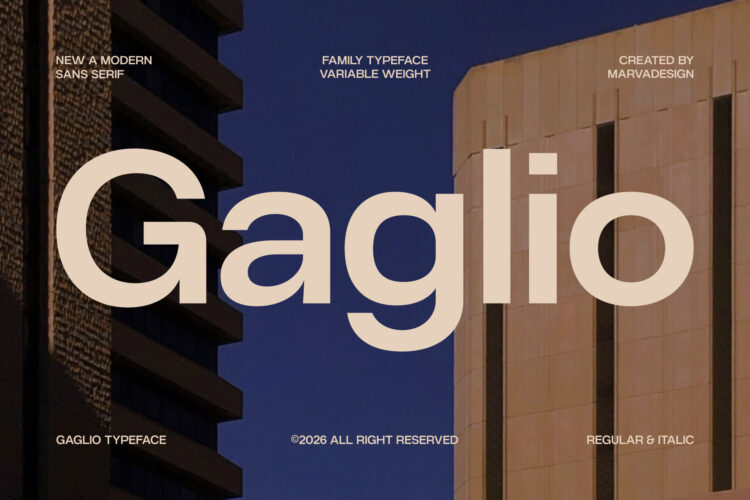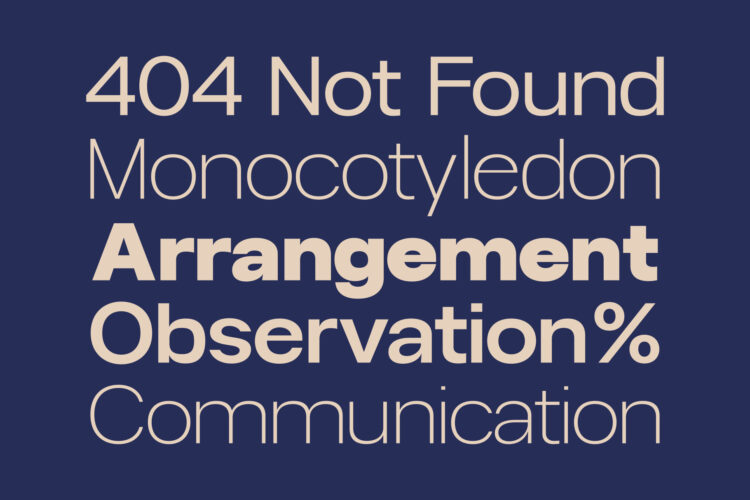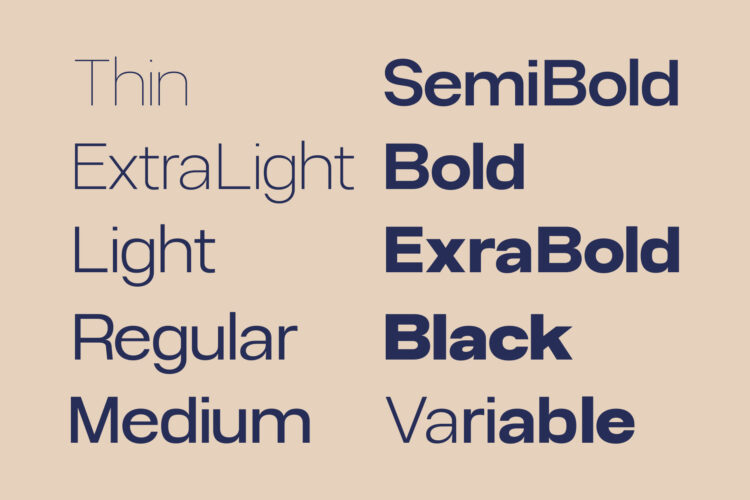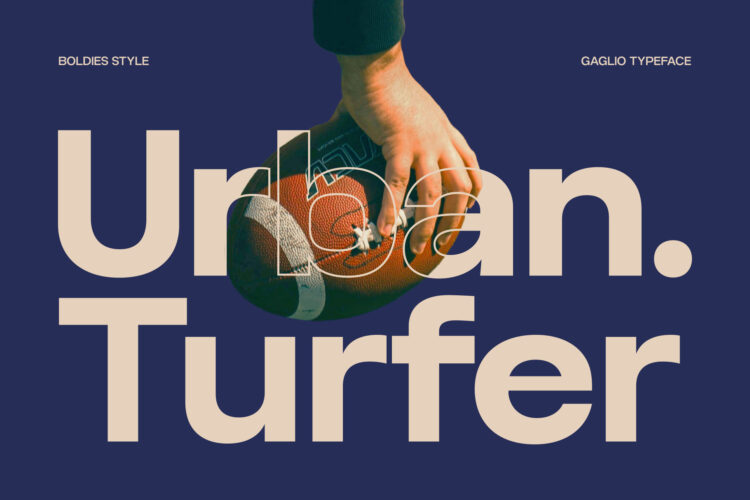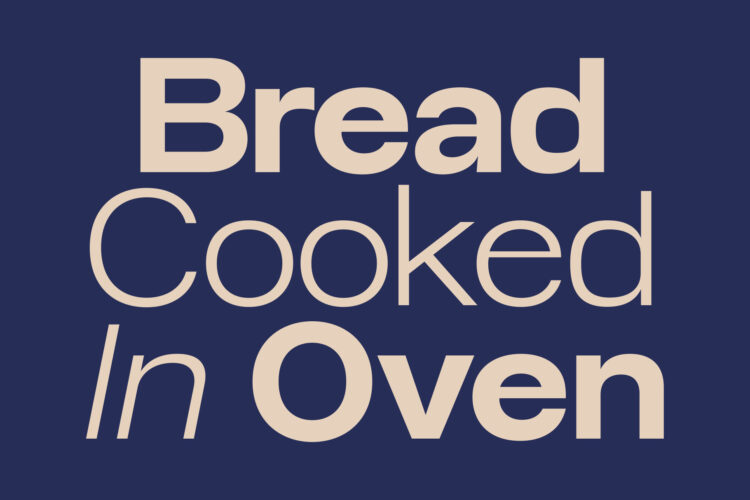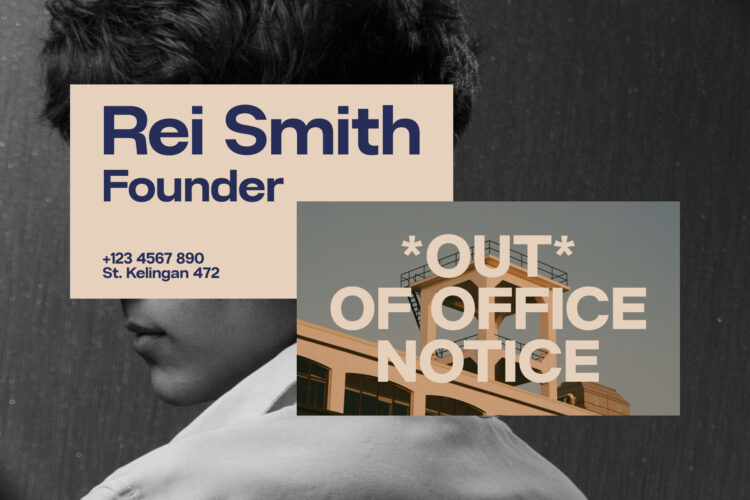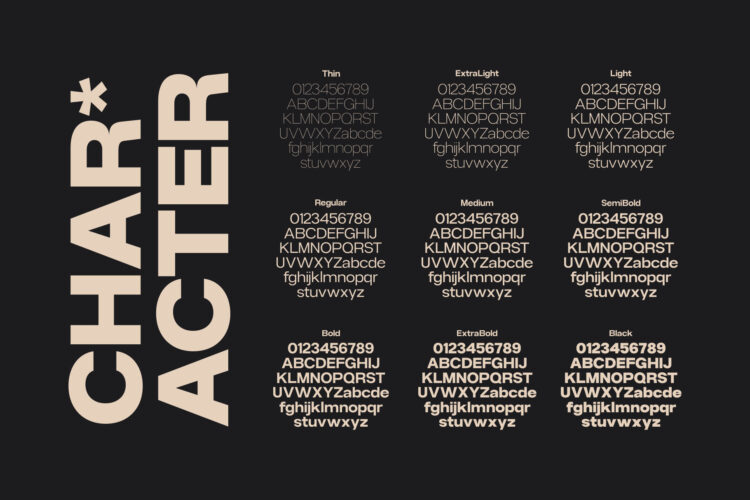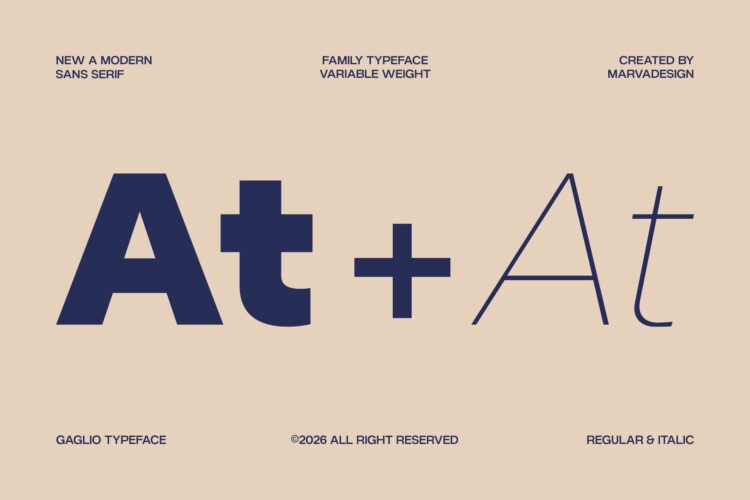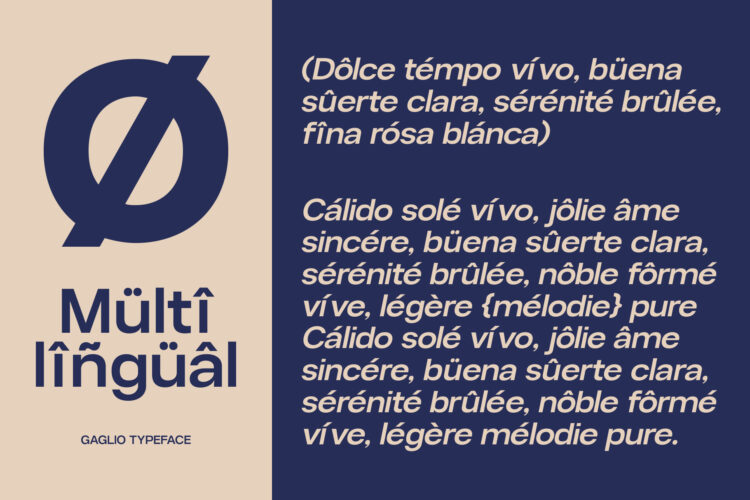
Modern Family Sans Serif Typeface
Gaglio is a modern sans serif typeface defined by its clean geometry, refined proportions, and highly versatile structure, designed to function seamlessly across a wide range of visual applications. Its letterforms feature a balanced combination of smooth curves and precise straight terminals, creating a harmonious rhythm that feels both contemporary and timeless. The typeface shows a subtle humanist influence in its open apertures and carefully controlled stroke contrast, which enhances legibility while maintaining a sleek, minimalist appearance. Gaglio’s extensive weight range from Thin to Black, including a fully functional variable axis allows for flexible typographic hierarchy, making it equally effective for bold headlines, elegant editorial layouts, and structured branding systems. The spacing is thoughtfully calibrated, offering a clean and airy texture in lighter weights and a strong, compact presence in heavier styles. Its consistent construction across uppercase, lowercase, numerals, and symbols ensures visual coherence, while details such as the rounded counters and slightly softened joints add a touch of warmth to an otherwise rational design.
The styles include
• Thin
• Thin Italic
• ExtraLight
• ExtraLight Italic
• Light
• Light Italic
• Regular
• Regular Italic
• Medium
• Medium Italic
• SemiBold
• SemiBold Italic
• Bold
• Bold Italic
• Extra Bold
• Extra Bold Italic
• Black
• Black Italic
• Variable